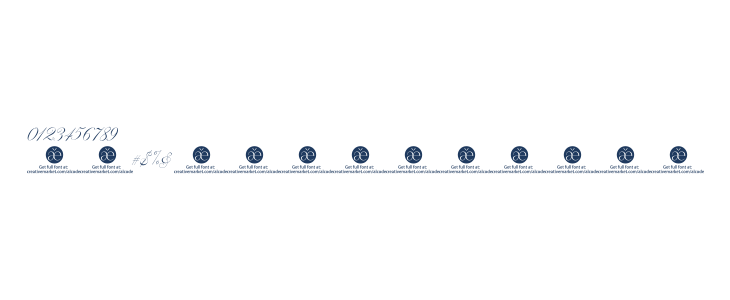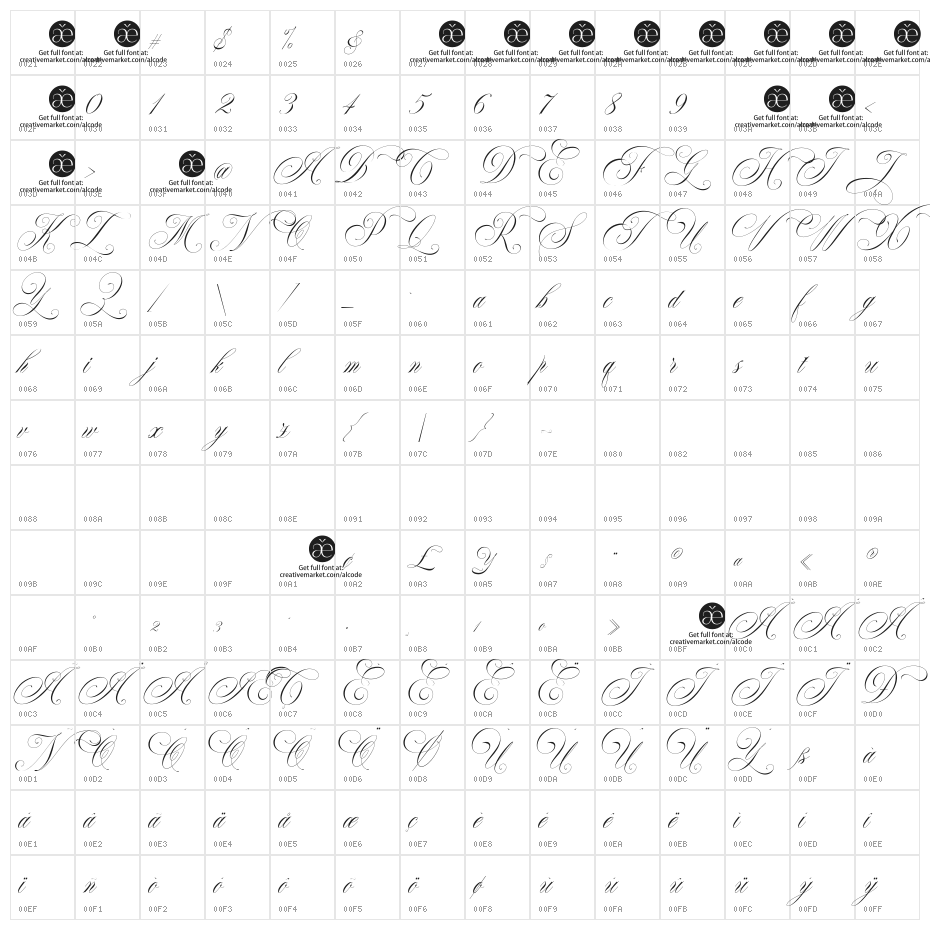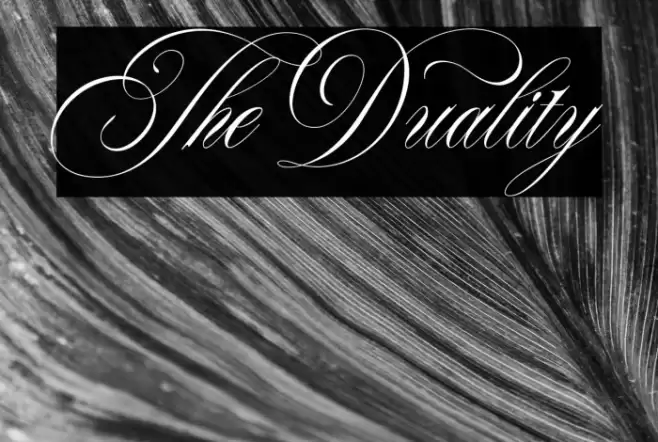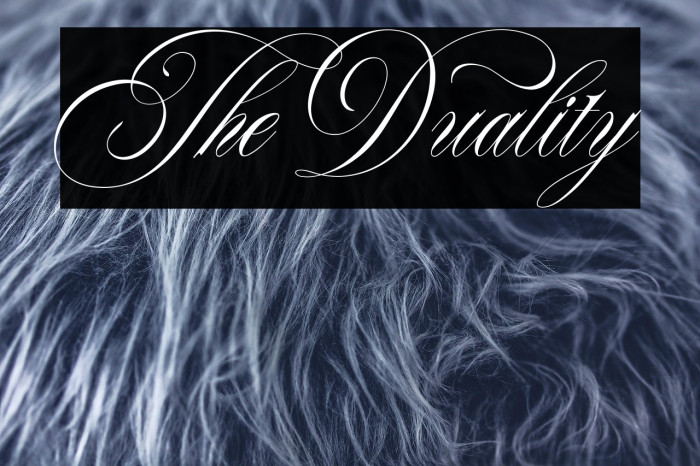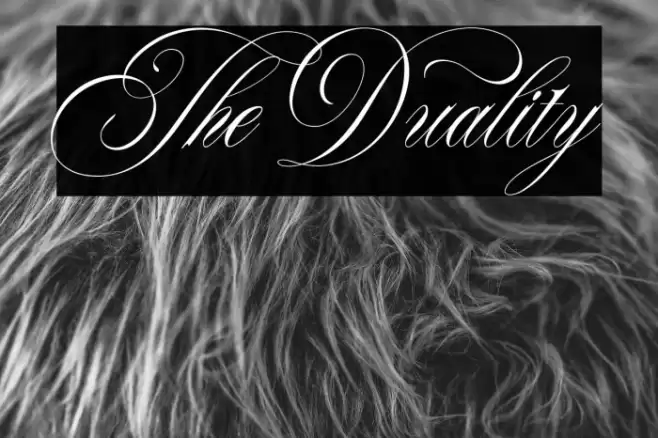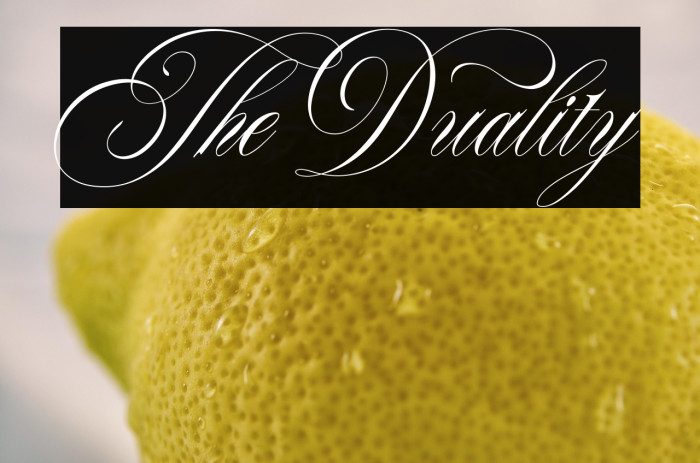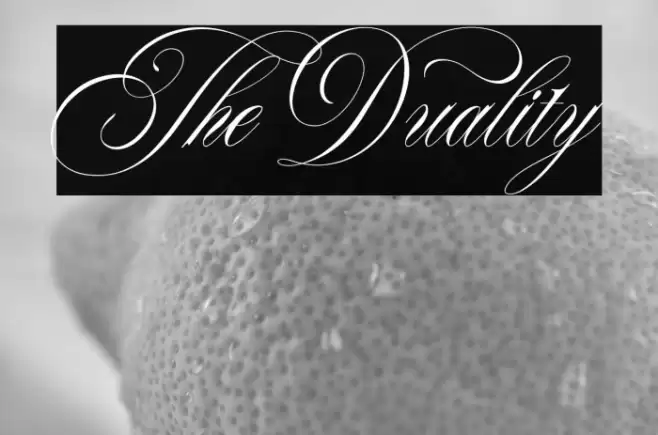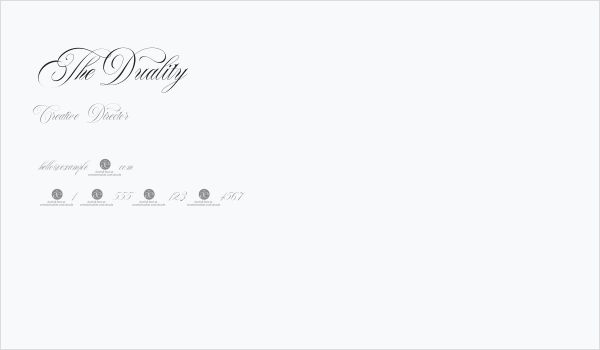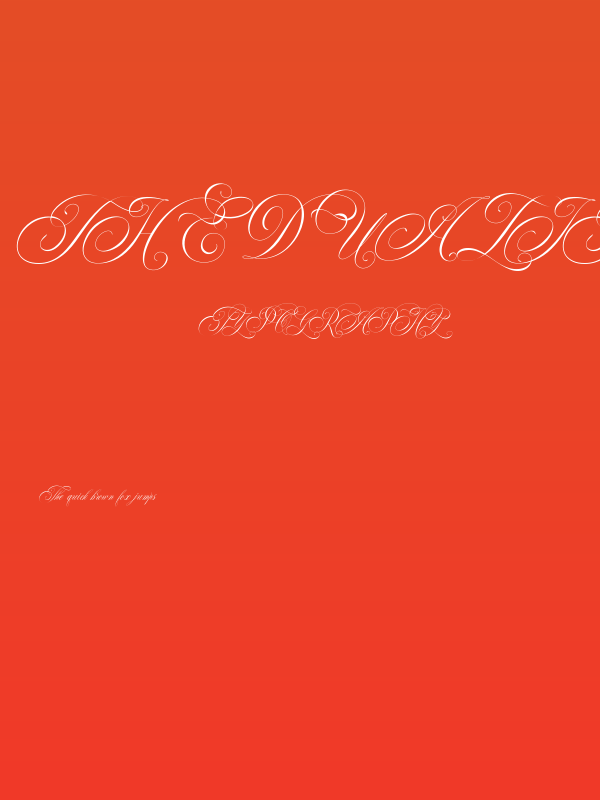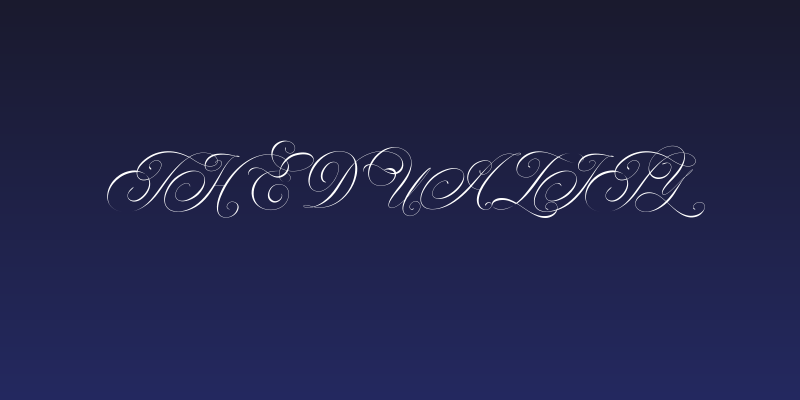
TheDuality Font
TheDuality Description
This elegant script font features intricate, flowing lines that create a sense of sophistication and grace. The uppercase letters are adorned with elaborate swirls and flourishes, giving them a decorative and ornate appearance. The lowercase letters maintain a smooth, cursive style that complements the uppercase, making the font suitable for formal and elegant designs. The numerals are consistent with the script style, maintaining the same fluidity and elegance. This font is ideal for projects that require a touch of class and refinement, such as wedding invitations, formal event programs, and luxury branding.
| Use Case | Headlines, Invitations, Branding |
| Proposed Projects | Wedding invitations, luxury branding, formal event programs, elegant stationery. |